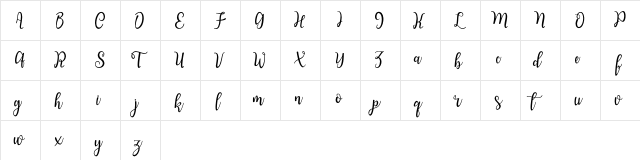
Neo Osaka Regular
| Designer | bejeletter |
Design Context for Neo Osaka Typeface
Neo Osaka is a composed and adaptable typeface that performs quietly and consistently across a wide range of design contexts.